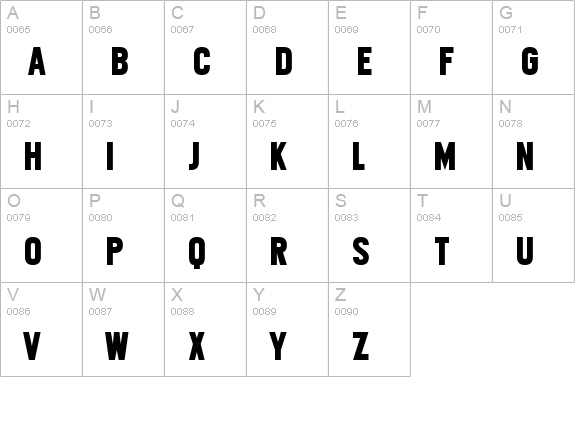
Introducing Front Page News font, a stylish and versatile typeface perfect for making headlines that demand attention. This bold and modern font features clean lines and sharp edges, making it ideal for creating impactful designs across a variety of projects. Whether you're designing a newspaper front page, a magazine cover, or a website banner, Front Page News font is sure to make your text stand out. Best of all, Front Page News font is completely free to download at FontsMarket.com. You can easily access this eye-catching font and use it in your projects without any cost. With its professional look and high-quality design, Front Page News font is a must-have in any designer's toolkit. Download it today and elevate your typography game with this stunning and free font option.